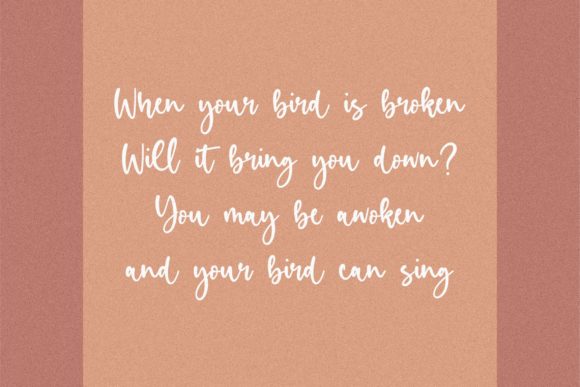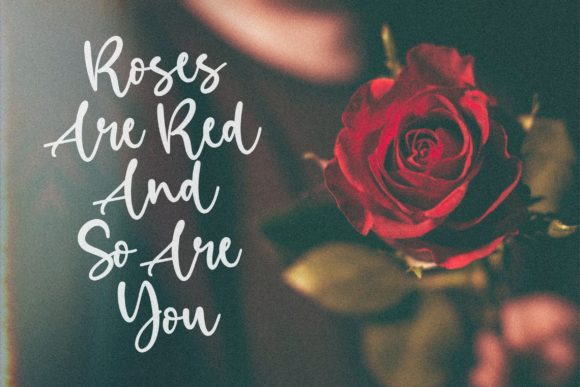
Birdlove Font
db-ku.com - Script & Handwritten -- Birdlove is a flowing and elegant handwritten font. Sweet and lovely, this font will be ideal for each of the designs that need a dreamy, personalized touch.